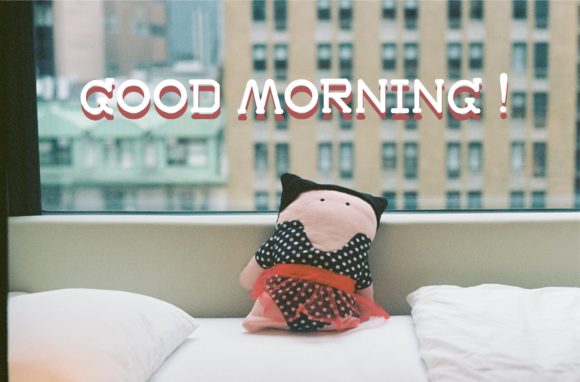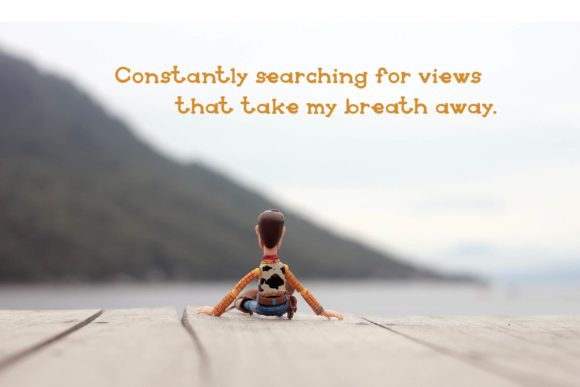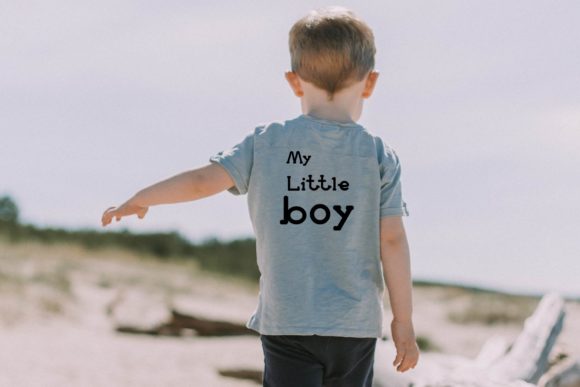
Introduction to Boonyapong Font
Boonyapong is a unique and interesting serif font.
Masterfully designed to become a true favorite, this font has the potential to bring each of your creative ideas to the highest level .
Key Features of Boonyapong Font
Why Choose Boonyapong Font?
Boonyapong Font offers exceptional quality and versatility, making it a valuable addition to your design toolkit. Whether you’re creating for personal projects or commercial use, Boonyapong Font delivers professional results.